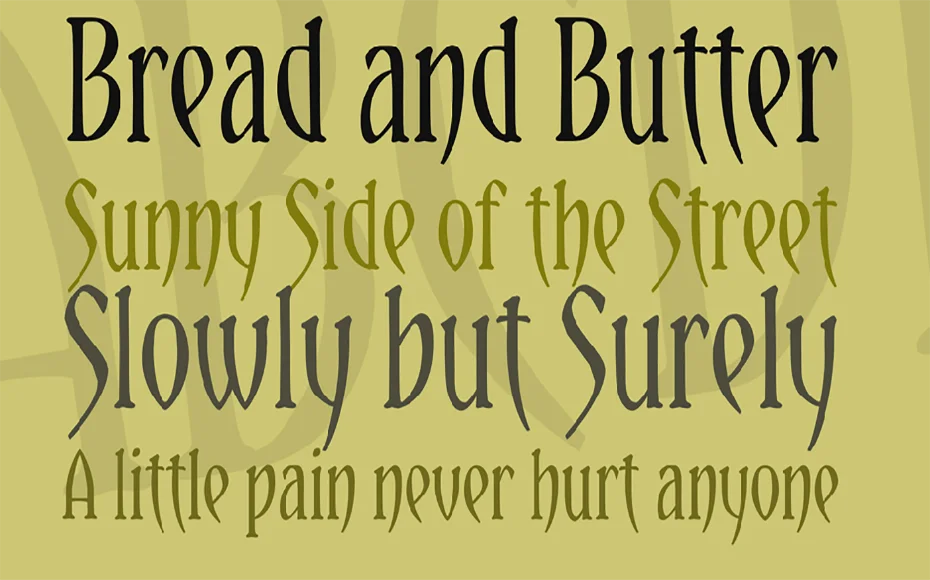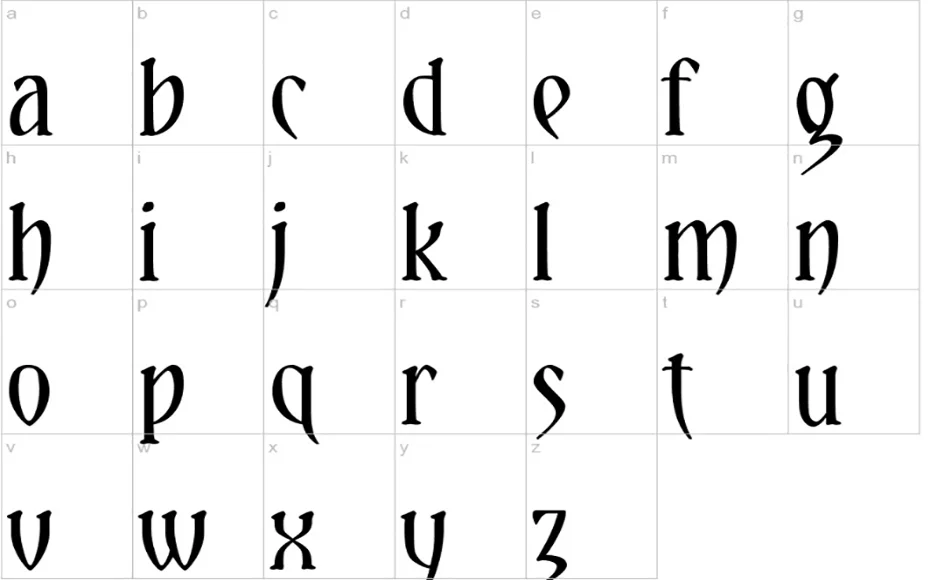
Yataghan Font is a gothic various typeface guaranteed to make your designs stand out from the pack. It will look good on t-shirts, logotypes, book covers, posters, badges, and more.
This font family was firstly released by an Australian designer Daniel Midgley on 7 December 2004.
All the letters included in the typeface specify the eligibility on their own. These different fonts are very creative and have many comparable-looking formats.
Due to its more unique and sharper characters, this typeface is mostly used for printing items such as movie posters and fabric printing.
Due to its unique texture, you can create several good designs. Like movie posters, game titling, unique emblems, fabric printing, kids bags, stationery, fashion magazines, and many more. So, feel free to use that everywhere.